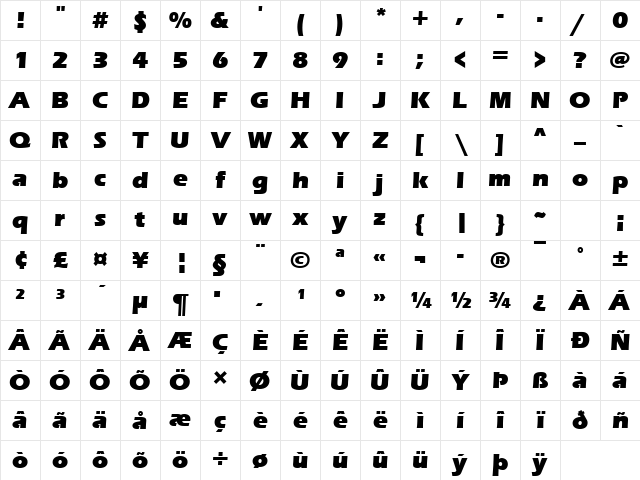
Eras Ultra ITC Regular
Design Context for Eras Ultra ITC
Eras Ultra ITC is a composed and adaptable typeface that performs quietly and consistently across a wide range of design contexts.
Pro Tip: Use Eras Ultra ITC in both headline and body roles to test its range before committing to a single application.